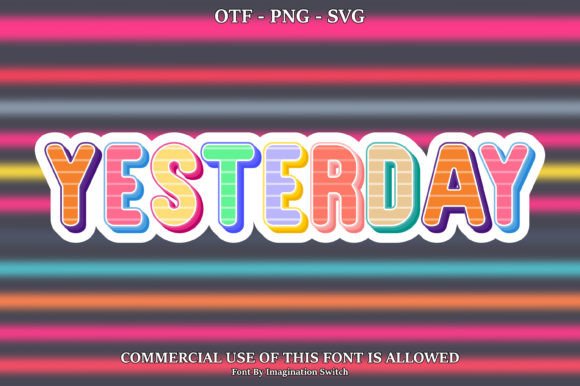
Yesterday: A Colorful Font for Unforgettable Designs
In a landscape saturated with standard sans serifs and predictable serifs, finding a typeface with genuine personality can feel like striking gold. Yesterday is precisely that kind of discovery. It’s not just a set of letters; it's a statement piece. This premium font immediately catches the eye with its unique, integrated color palette. Each character is meticulously crafted with intriguing hues, creating a built-in gradient or multi-tonal effect that brings instant depth and vibrancy to any text. It’s a creative font designed for moments when you need your message to leap off the page or screen, making it a valuable asset for designers, marketers, and creators looking for that extra spark of originality.
Where Yesterday Truly Shines: Practical Applications
Understanding a font's strengths is key to using it effectively. Yesterday isn't your go-to for body text in a lengthy report, but it excels in scenarios where impact and visual engagement are the primary goals. Think of it as your headline specialist, your attention-grabbing hero.
The key is to deploy Yesterday where it can breathe. Give it space to be the focal point. It’s a display font at its core, meaning its personality is best appreciated in larger sizes where the detail of its colored characters can be fully seen and appreciated.
Harnessing Yesterday's Potential: A Designer's Guide
Simply choosing a creative font is only half the battle. Using it strategically is what separates good design from great design. Here’s how to get the most out of Yesterday and integrate it into your projects with finesse.
Font Pairing is Everything
A font as distinctive as Yesterday demands a complementary partner. Pairing it with another strong, decorative font would create visual chaos. Instead, opt for balance. A versatile, neutral sans serif font like Montserrat, Open Sans, or Lato makes an excellent companion. Use Yesterday for headlines and the sans serif for subheadings and body text. This contrast allows Yesterday to shine while maintaining overall readability and a clean, professional look. For a different vibe, a simple, classic serif font like Georgia or Times New Roman can also work, lending a touch of timeless elegance to the modern display font.
Evaluating Project Fit and Readability
Before committing, ask yourself: Does this font's personality align with the project's tone? Yesterday communicates creativity, modernity, and approachability. It might not be the right choice for a law firm's annual report, but it could be perfect for a tech startup's launch campaign. Always test it in context. Place a sample headline on your mockup. How does it feel? Does it enhance or distract from the message?
Readability is paramount. While Yesterday is designed for clarity, its colored characters are best viewed at larger sizes. Avoid using it for long paragraphs or small, critical text like legal disclaimers. Its strength is in short, impactful bursts of text.
Practical Implementation Tips
1. Start with a Strong Concept: Don't rely on the font alone to carry a weak idea. Yesterday should amplify a clear, creative concept.
2. Consider the Color Context: While the font has its own colors, be mindful of the background. Ensure there is sufficient contrast for legibility. A busy, multicolored background might compete with the font's own hues.
3. Use it for Key Messaging: Apply Yesterday to your most important text—your headline, your brand name, your core slogan. This leverages its attention-grabbing power where it matters most.
4. Explore Stylistic Alternatives: Some premium fonts include alternate characters or ligatures. Check if Yesterday offers any stylistic sets that could provide even more unique customization for your logo or headline.
Yesterday is more than just a typeface; it's a tool for visual storytelling. By understanding its unique character and applying it thoughtfully, you can elevate your designs, strengthen your brand identity, and create memorable experiences for your audience. It embodies modern typography's move towards expressive, personality-driven fonts that help brands and creators stand out in a crowded digital world. When used with intention, it doesn't just display words—it makes them felt.